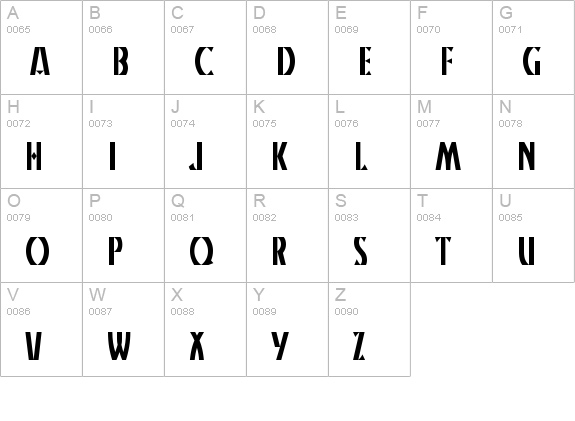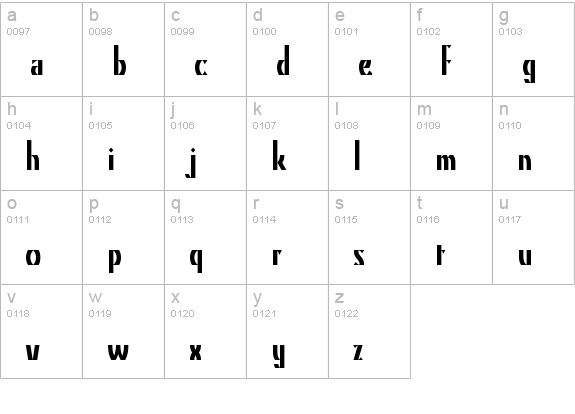
Kristin Regular Font Details
Kristin Regular is the standard, neutral variant in the Kristin typeface family \xE2\x80\x94 well suited to general body text, paragraphs, and standard typographic work.
Kristin Regular font is a modern and stylish typeface that exudes elegance and sophistication. With its clean lines and balanced proportions, this font is perfect for a wide range of design projects, from branding to editorial design. The versatility of Kristin Regular makes it a great choice for both digital and print applications. This font is freely available to download at FontsMarket.com, where you can access a wide selection of high-quality fonts for all your creative needs. Whether you're working on a logo, website, or marketing materials, Kristin Regular is sure to elevate your designs and make a lasting impression. Embrace the beauty and versatility of Kristin Regular font today and take your design projects to the next level. Download it for free at FontsMarket.com and unleash your creativity with this stunning typeface.